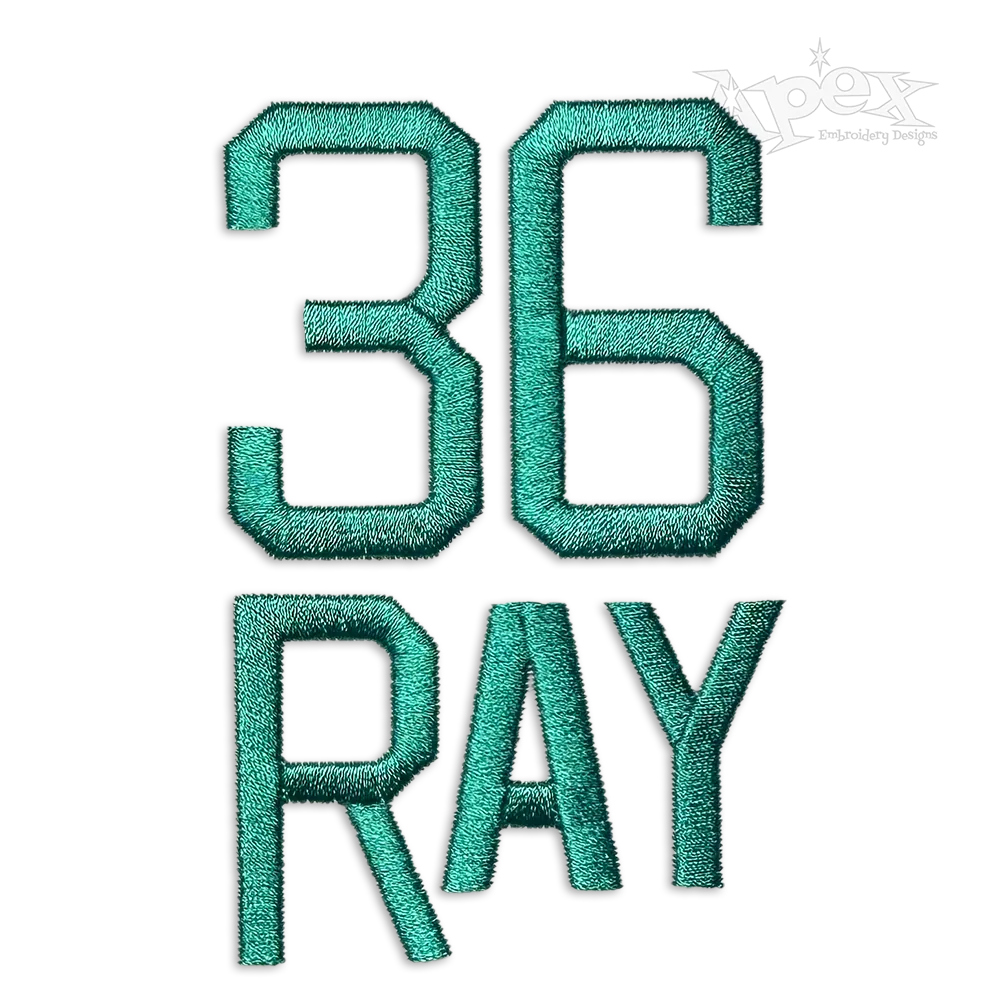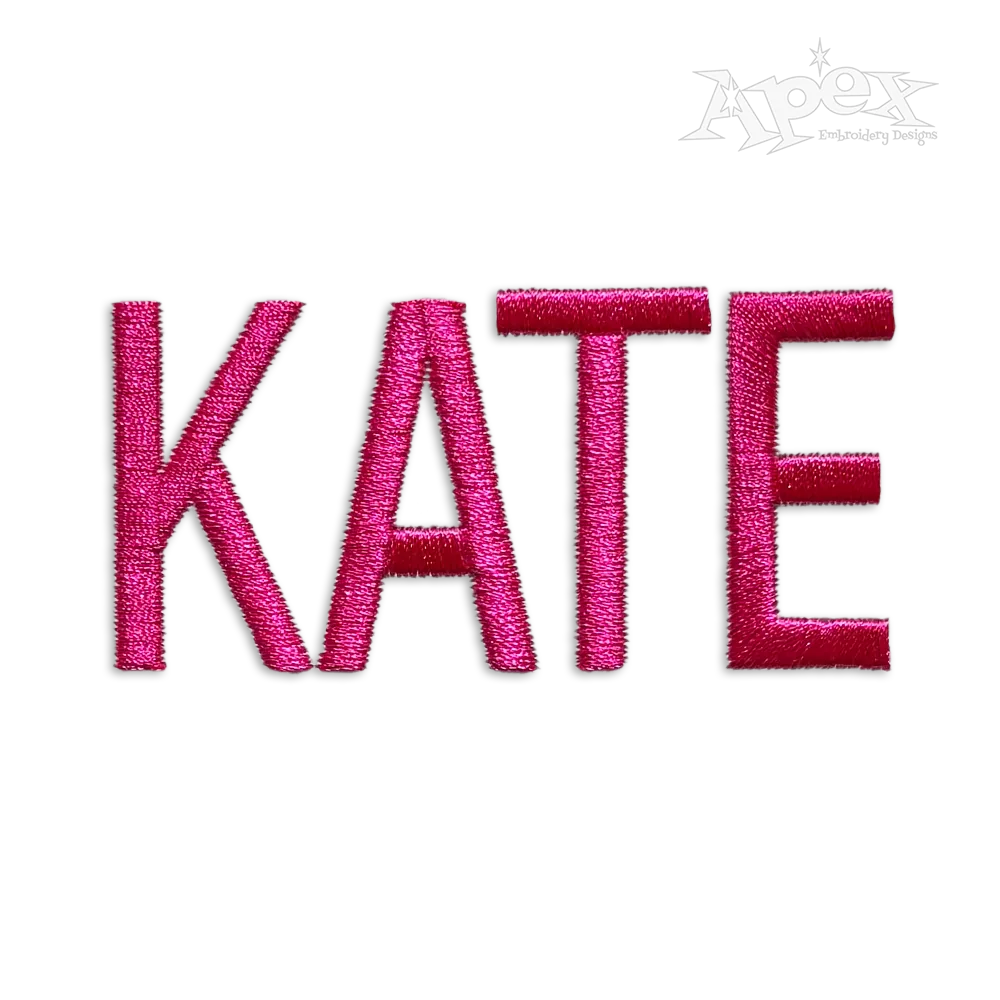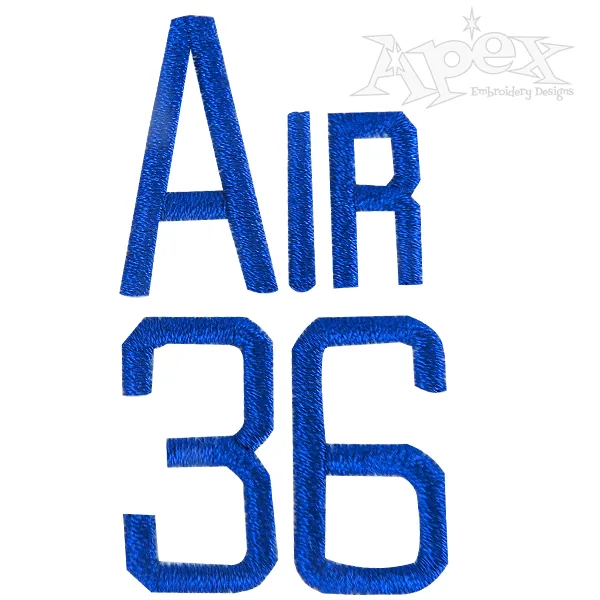
Air Force Embroidery Font
Born from the disciplined geometry and proud heritage of aviation insignia, the Air Force Embroidery Font captures the resolute authority of military craftsmanship. When digitizing this alphabet, our studio focused on the aerodynamic balance and commanding presence found across armed service uniforms, hangar markings, and flight deck gear. Every letter carries a clean, stalwart architectural weight that translates into pure visual authority on fabric. Stitched in brilliant sheen or subdued tactical thread, it delivers pristine, laser-sharp clarity that pays tribute to those who serve, creating a timeless foundation for bespoke tribute pieces and everyday utility wear alike.
This masterfully digitized alphabet is delivered in four versatile, scale-calibrated sizes to ensure flawless density and tension control across varying fabric weights and hoop dimensions:
- 0.5-inch (ideal for low-profile name tapes, cuff accents, and compact accessory labels)
- 1-inch (legacy labeled as .1"; versatile for left-chest insignias, cap side panels, and small pouches)
- 1.5-inch (commanding scale for gear bags, apparel fronts, and commemorative wall hangings)
- 2-inch (bold, high-visibility sizing for jacket backs, duffels, and heirloom display quilts)
Each size contains complete uppercase letterforms and numerals, individually programmed with purpose-built underlay to maintain stitch integrity across all standard machine embroidery setups.
Project Ideas for Air Force Embroidery Font
The structured, no-nonsense silhouette of this font makes it exceptionally versatile for personal, commemorative, and commercial embroidery projects:
- Flight Jackets & Outerwear: Personalize the chest, shoulder, or interior lining of classic leather bombers, field jackets, and nylon utility vests.
- Tactical & Travel Gear: Embellish heavy canvas duffel bags, bug-out packs, weekender totes, and rugged Dopp kits with clean, recognizable initials.
- Service Commemorations & Shadow Boxes: Create heirloom framed displays, retirement flags, and custom ribbon banners honoring veterans of the Air Force, Army, Navy, and allied armed services.
- Uniform Name Tapes & Patches: Stitch authentic service tapes, branch identifiers, and rank plaques for functional utility and airsoft gear.
- Structured Headwear: Embroider bold call signs, squadron numbers, or family monograms across the crowns of tactical caps and watch caps.
- Personalized Gifting: Elevate heavy linen cocktail napkins for veteran gatherings, custom grill aprons, or personalized utility rolls for mechanics and pilots.
Air Force Embroidery Font Craft & Letterform Details
The visual impact of military lettering relies on absolute uniformity, and that discipline guided every node and stitch angle in this collection. Rather than relying on automated conversions, our digitizers hand-charted every satin column with deliberate compensation for fabric push-and-pull. The verticals and horizontal crossbars are meticulously balanced to ensure that crossbeams—such as those on the 'A', 'H', and 'E'—retain uniform visual weight when threaded next to one another.
Beneath the surface, a multi-layer foundation of edge-run and center-walk underlays secures the fabric grain, locking down stretchy knits or coarse ballistic weaves before the dense, lustrous top satin stitches lay flat. Corner joins are programmed with clean turn-stitching to eradicate bunching, thread breaks, and bulky knots at the apex of angled letters like 'M', 'N', 'V', and 'W'. The result is a sharp, crisp alphabet that runs smoothly on single-needle and multi-needle machines alike, giving your embroidery the unyielding strength and refined polish of genuine aviation tradition.